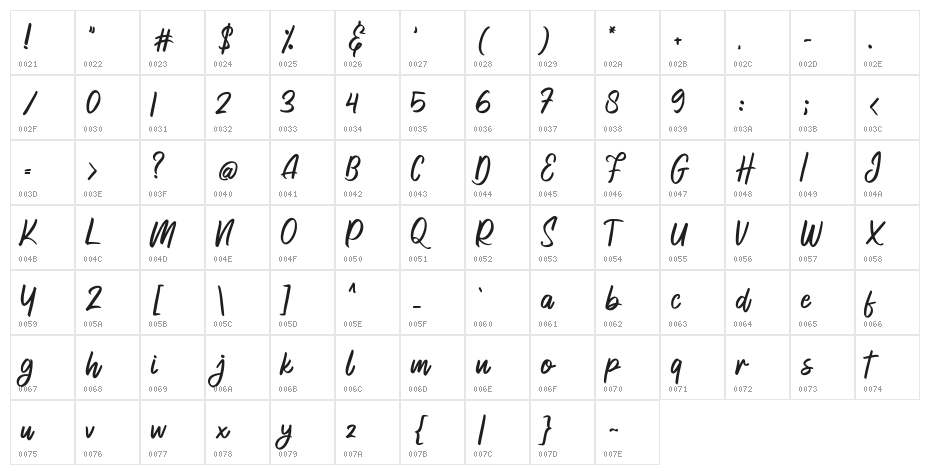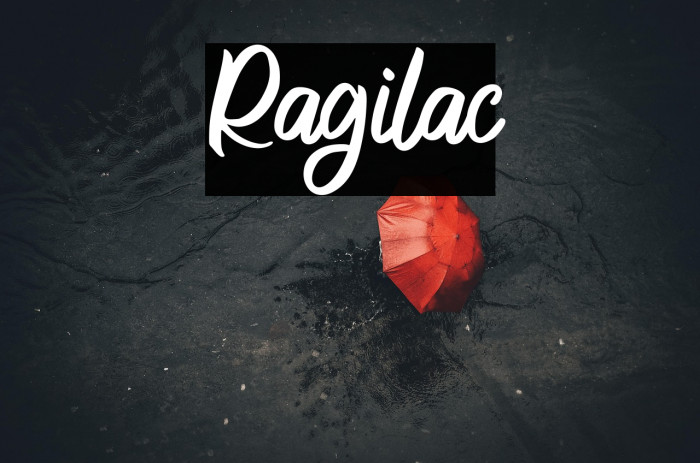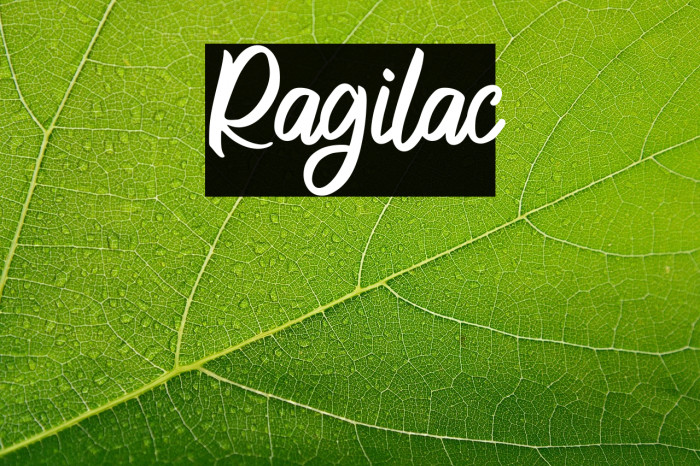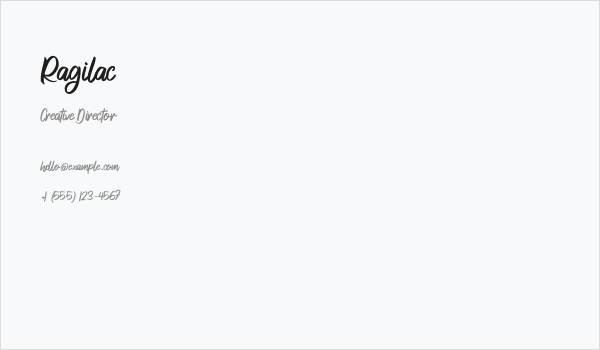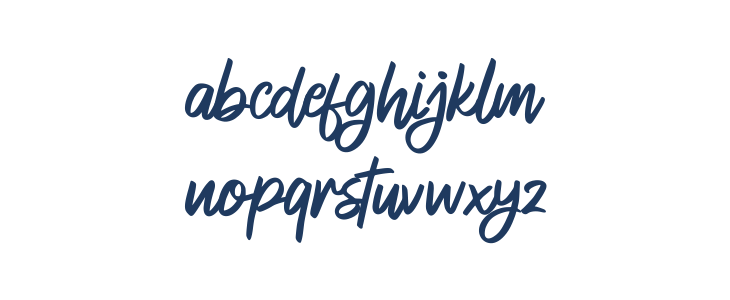
Ragilac Font
Ragilac Description
This font features a dynamic and flowing script style, characterized by its smooth, cursive strokes and a handwritten appearance. The letters are connected, creating a sense of continuity and fluidity. The uppercase letters are bold and prominent, while the lowercase letters maintain a consistent flow with elegant loops and curves. The numerals and special characters complement the overall style, maintaining the same fluidity and boldness. This font exudes a casual yet sophisticated vibe, making it suitable for various creative applications.
| Proposed Projects | Ideal for wedding invitations, greeting cards, branding projects, and social media graphics. |